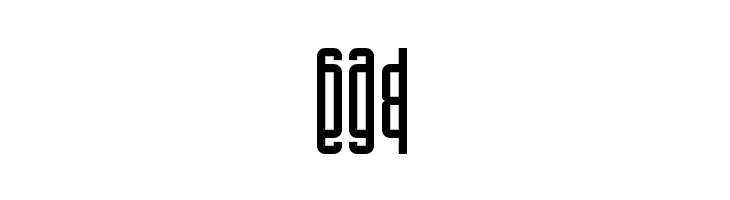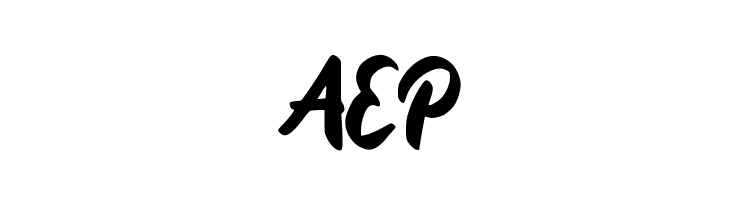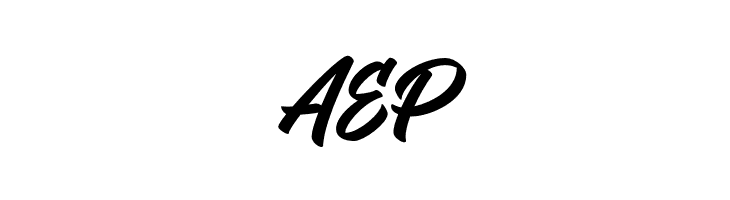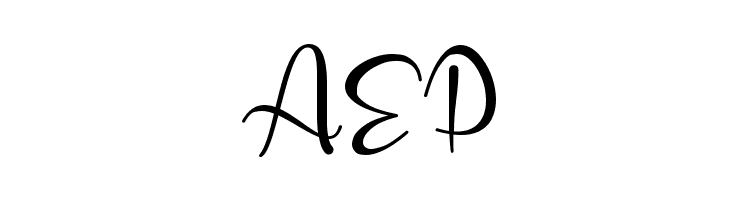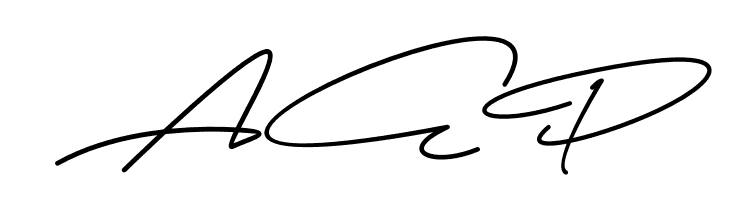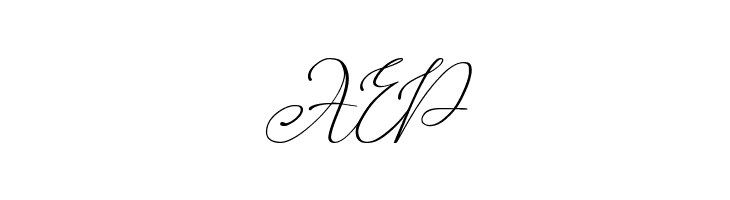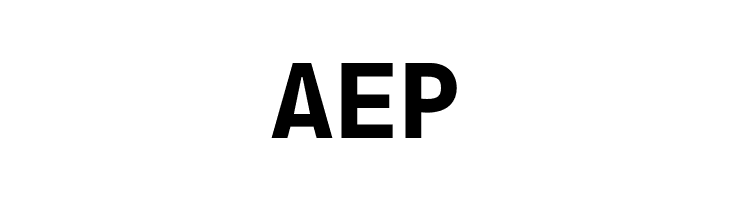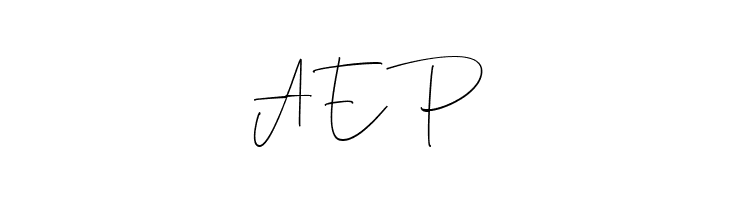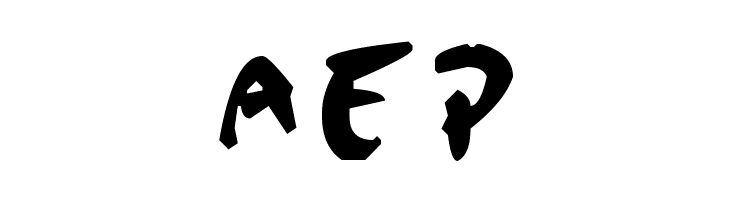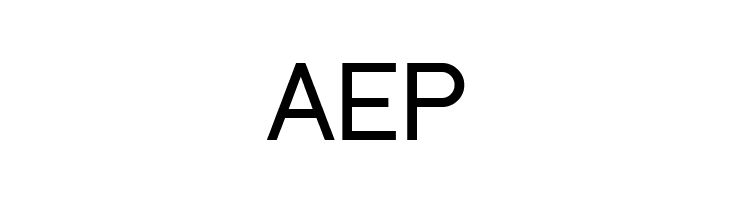
• Aguellera
An elegant, flowing script font with a natural, handwritten appearance.
• Aguero Serif Free Italic
An elegant serif typeface with a refined italic style and pronounced serifs.
• Aguero Serif Free Regular
A refined serif font with tall, narrow letterforms and high contrast strokes.
• Aguizard Tryout
• Agus Hasny
An elegant script font with flowing, interconnected letters and high contrast strokes.
• Agusta
A bold, expressive script font with a dynamic, hand-painted style.
• Agustin
A bold, cursive script font with dynamic, interconnected strokes.
• Agustin
A bold, dynamic script font with fluid, connected strokes and a lively style.
• Agustin Swash
A decorative font with elegant swashes and flourishes, perfect for artistic projects.
• Agustina
A modern, elegant script font with flowing curves and sophisticated style.
• Agustina Signature
A flowing, cursive script font with an elegant, handwritten style.
• Agustina-Heavy
A bold, heavy font with a modern and impactful design.
• Agustine Signature
Elegant and modern handwritten script font.
• AgustinSwash
An elegant, decorative font with flowing swashes and calligraphic flair.
• Agustus Merdeka
A bold, expressive brush-style font with dynamic strokes and a hand-painted appearance.
• Agustus Merdeka
A bold, brushstroke font with a textured, hand-painted appearance.
• aguzlo
A bold, playful display font with a hand-drawn, energetic style.
• Agworishand Regular
• Agym